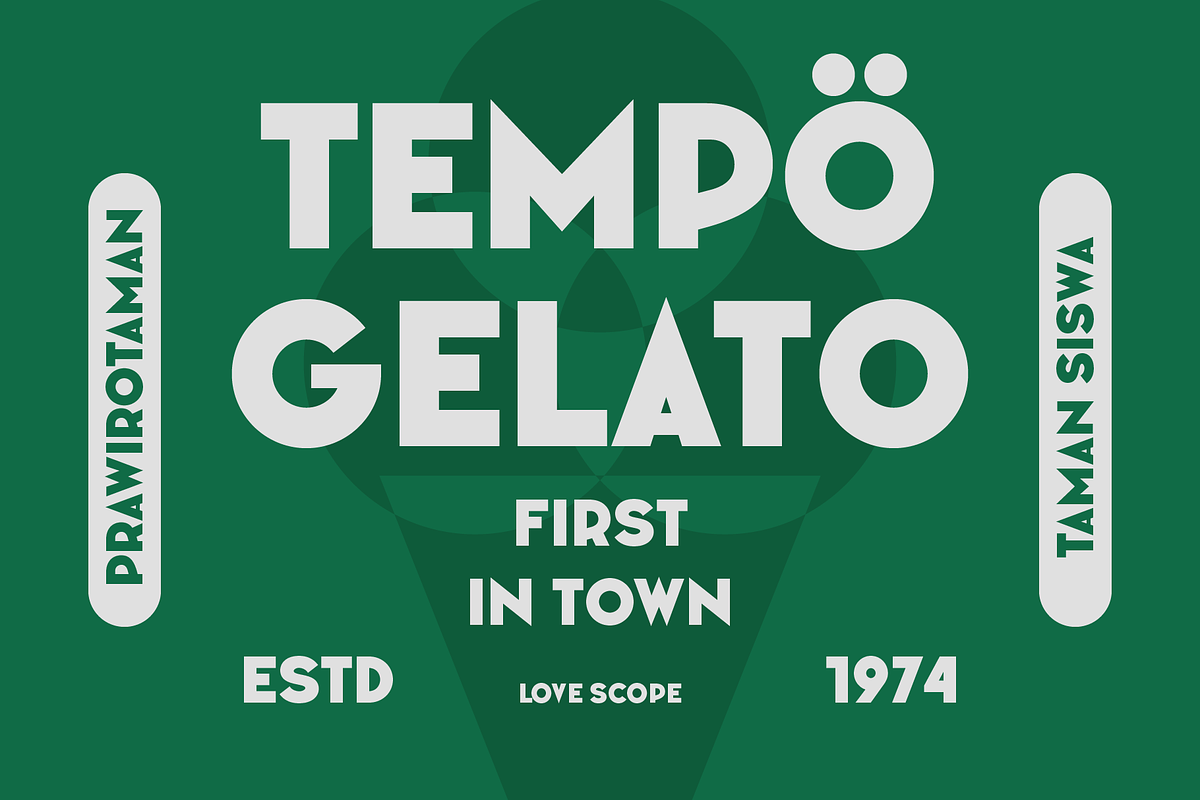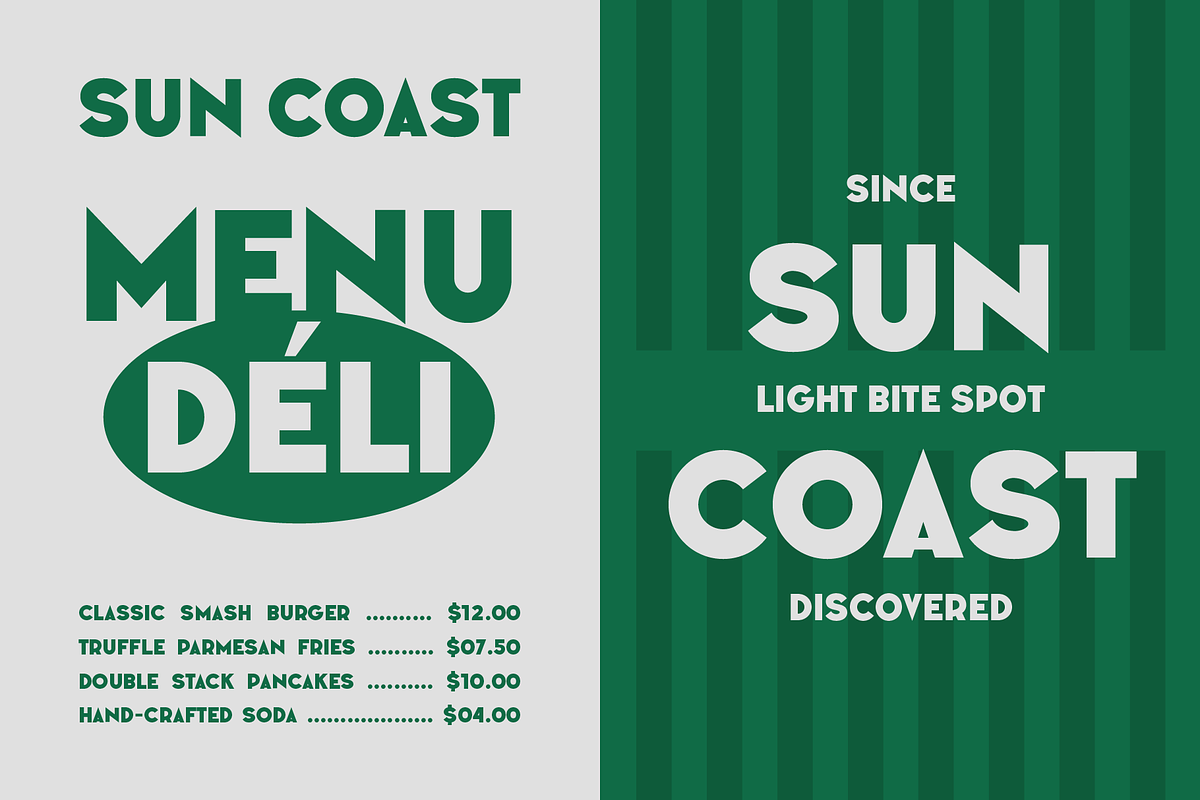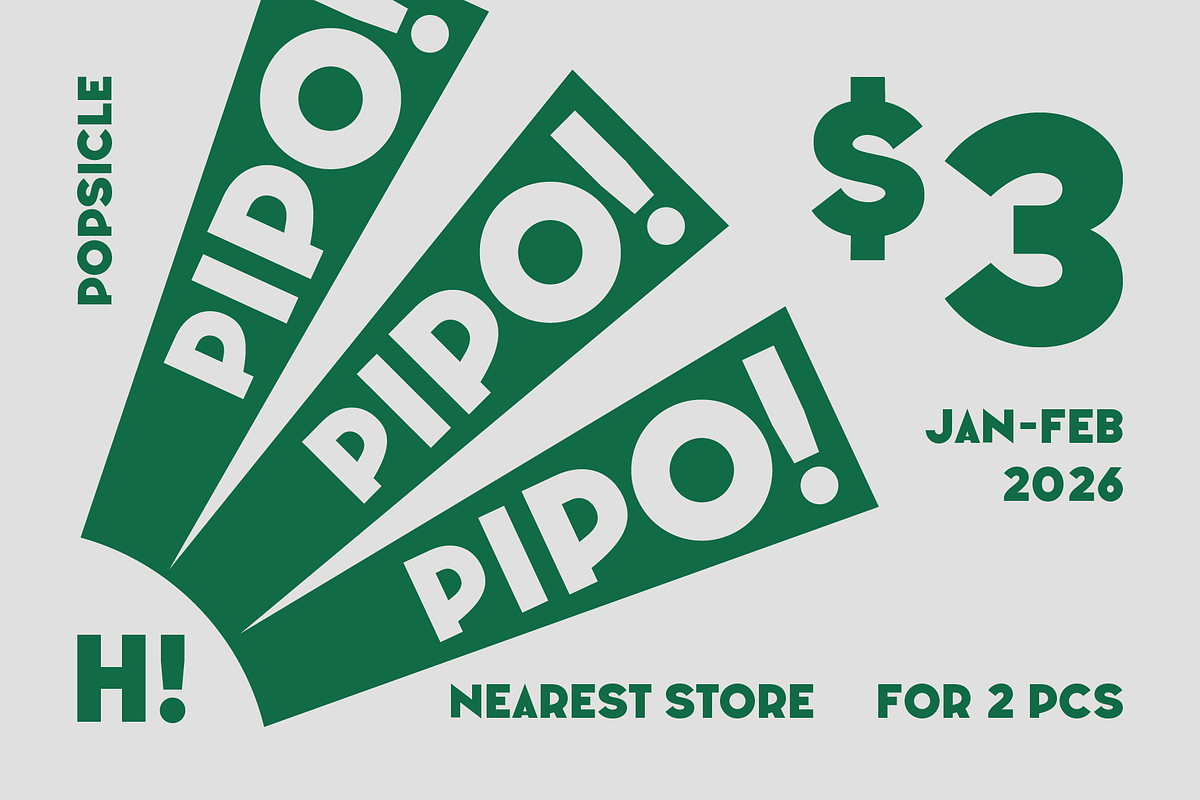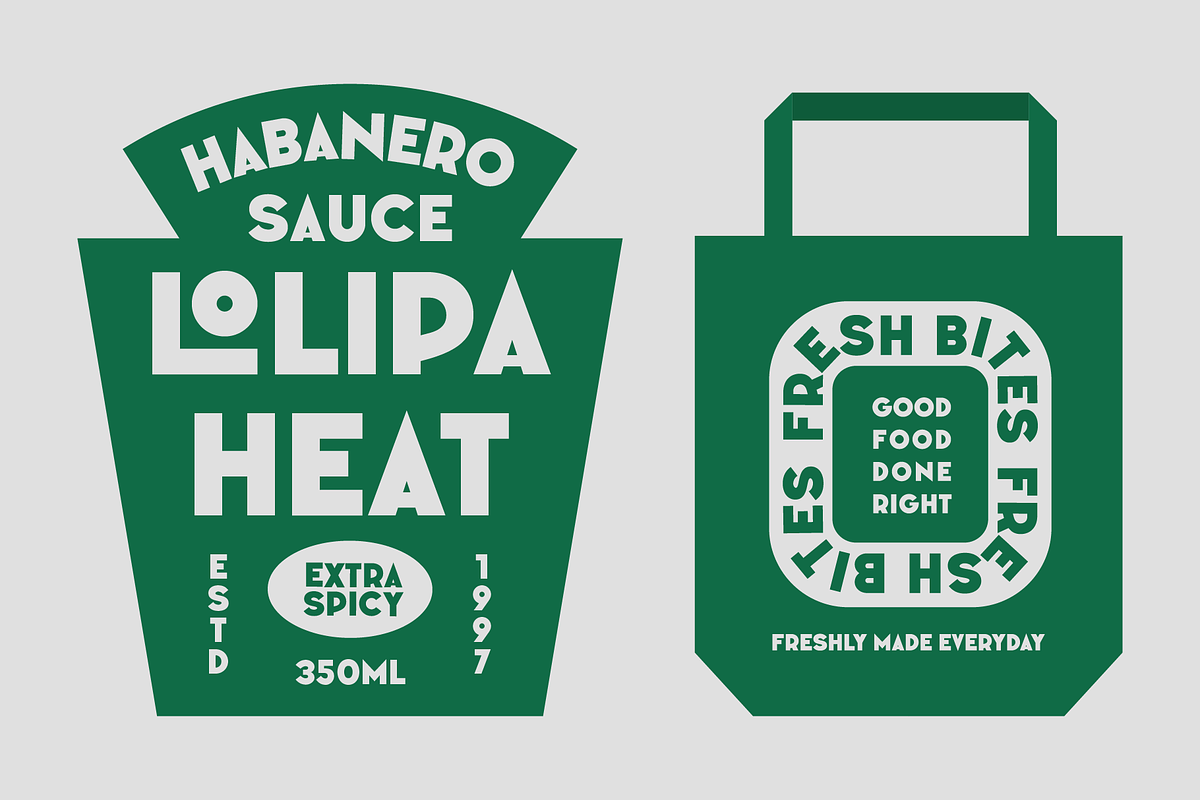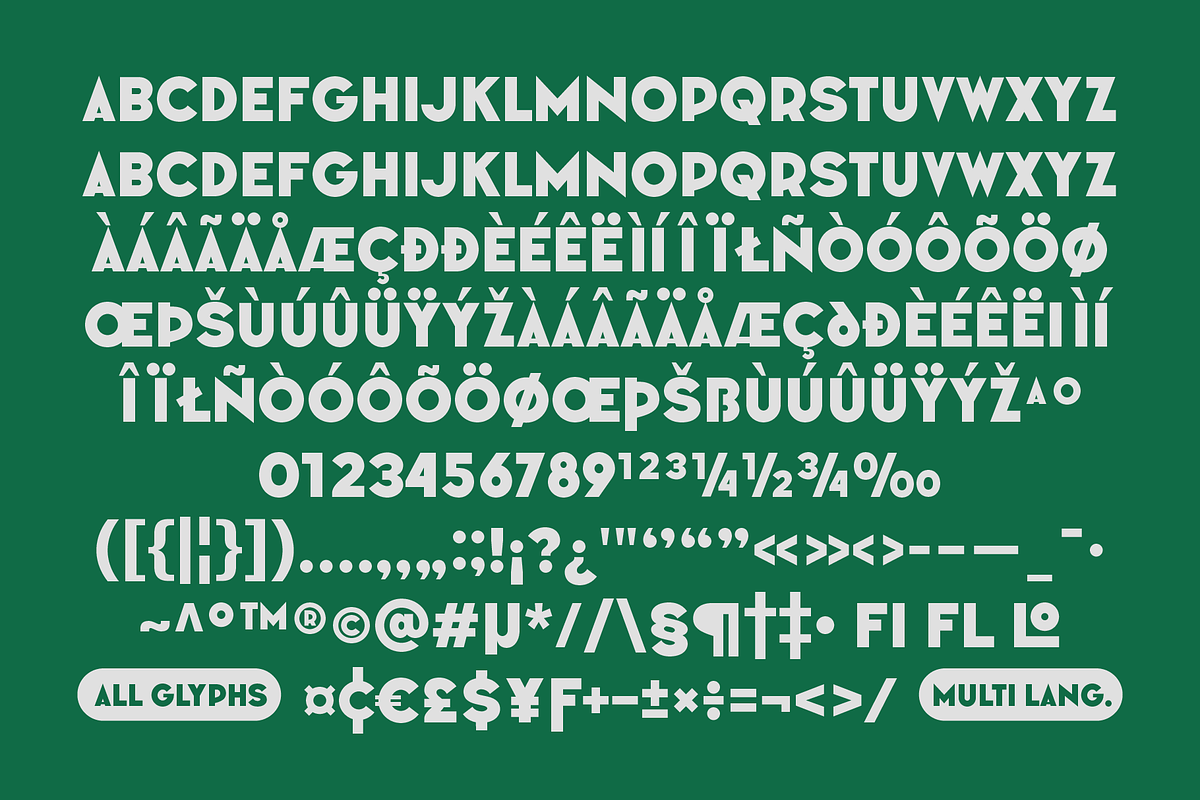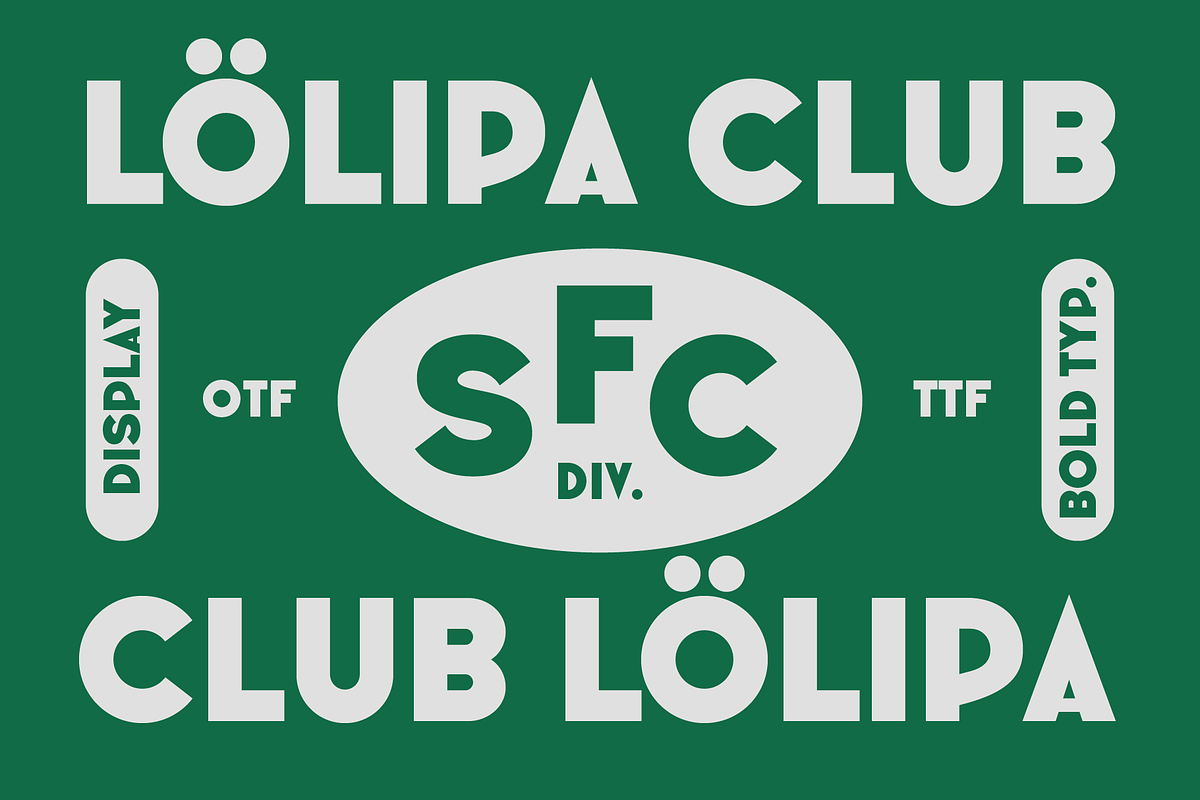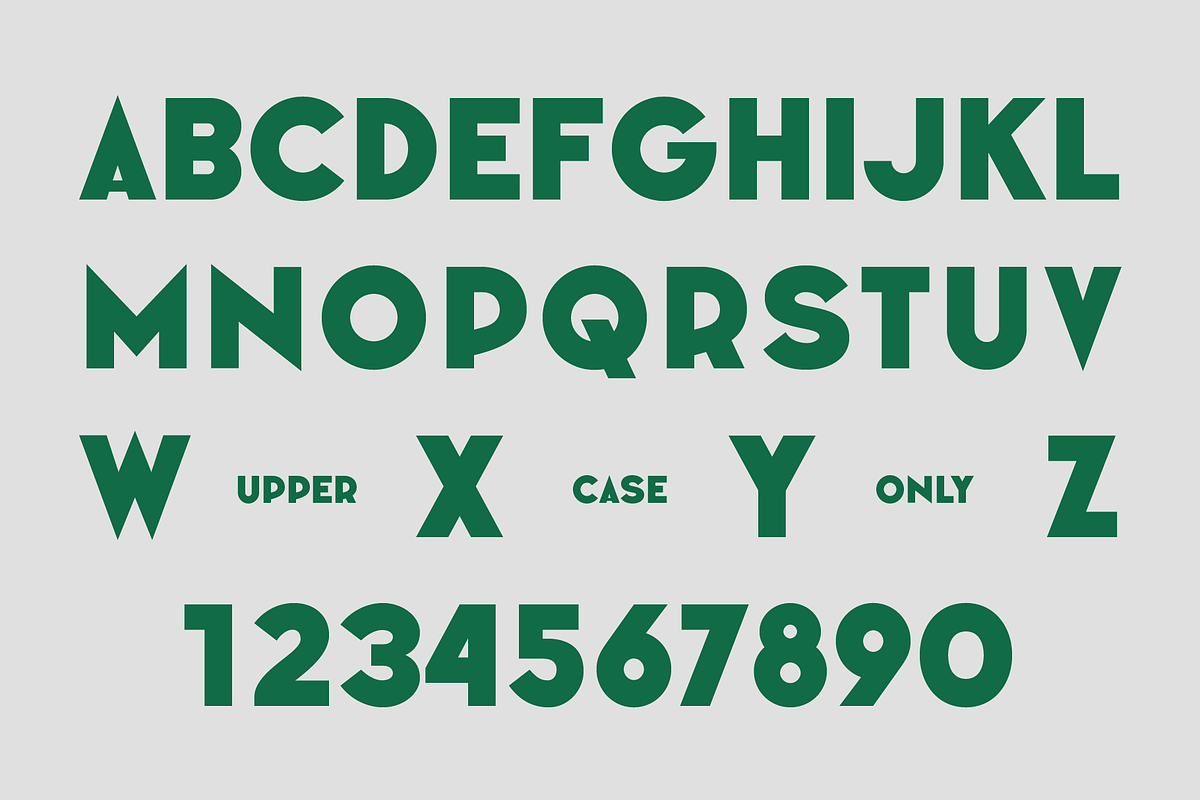
SFC Lolipa Club
SFC LÖLIPA CLUB is a bold, playful rounded sans serif display typeface designed with confident geometry and smooth curves. Inspired by modern club culture, retro signage, and contemporary branding aesthetics, it delivers a clean yet expressive personality that feels friendly, graphic, and instantly recognizable. Its soft edges, balanced proportions, and strong uppercase forms make it ideal for eye-catching typography that remains readable and stylish across digital and print applications.
Built for designers who want clarity with character, LÖLIPA CLUB works perfectly for bold branding systems, lifestyle visuals, packaging, and modern editorial layouts where personality matters just as much as structure.
Ideal Applications for LÖLIPA CLUB Typeface
Modern branding & identity systems
Posters, headlines & editorial layouts
Packaging, labels & product design
Apparel, streetwear & merchandise
Digital graphics, social media & web design
Bold Display Sans Serif Typeface
Rounded Geometric Letterforms
All Caps Style